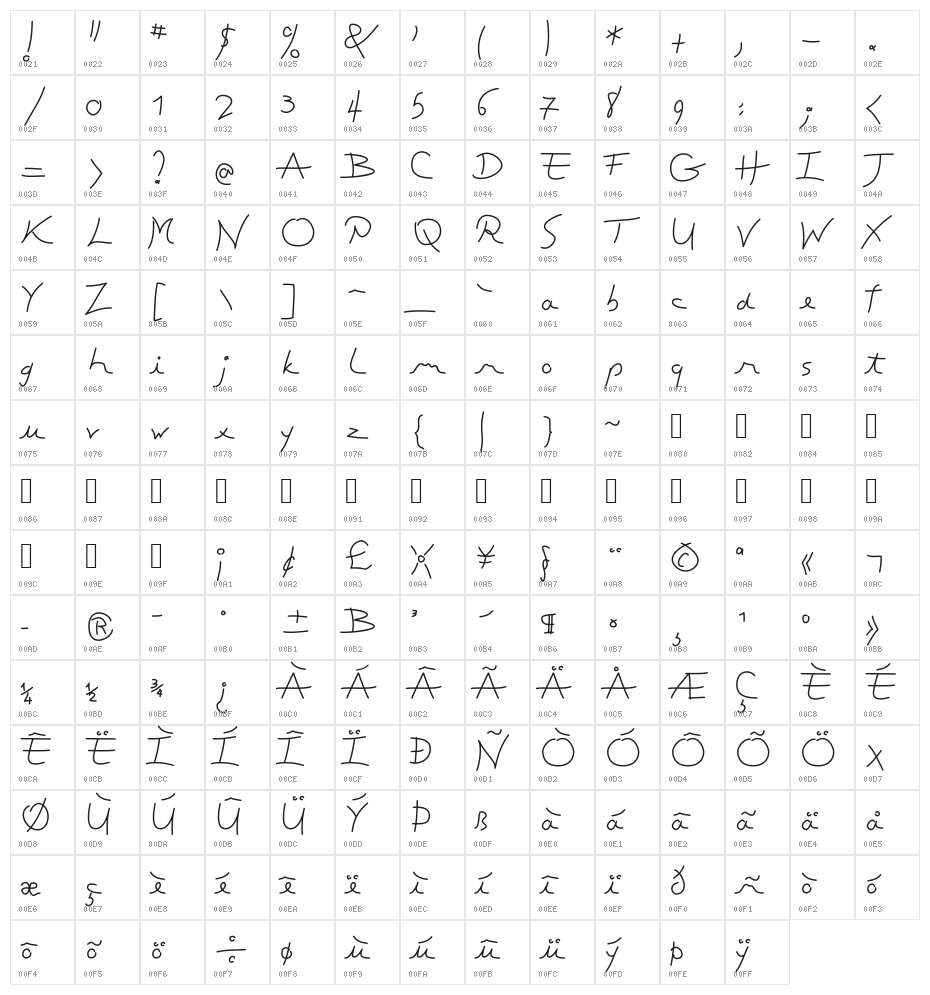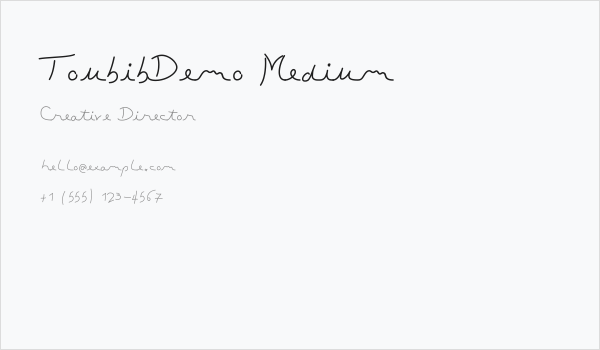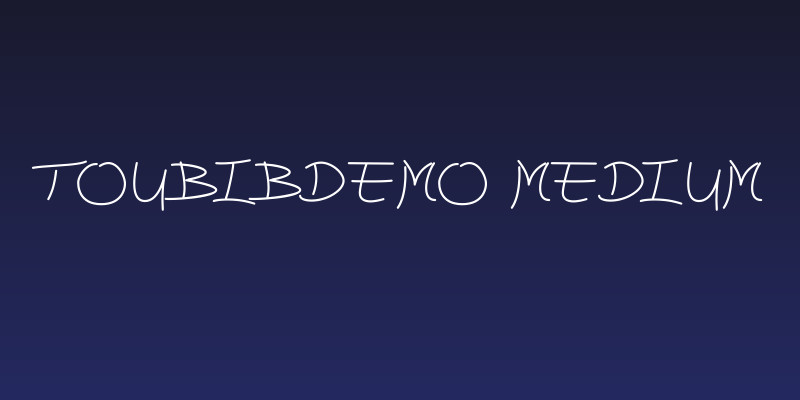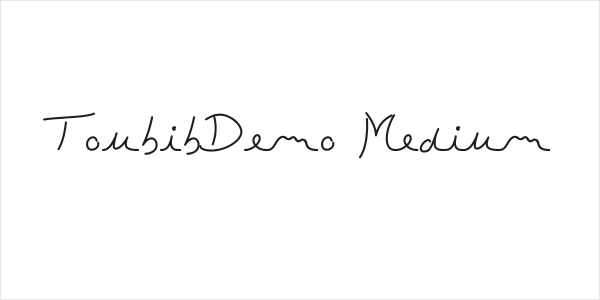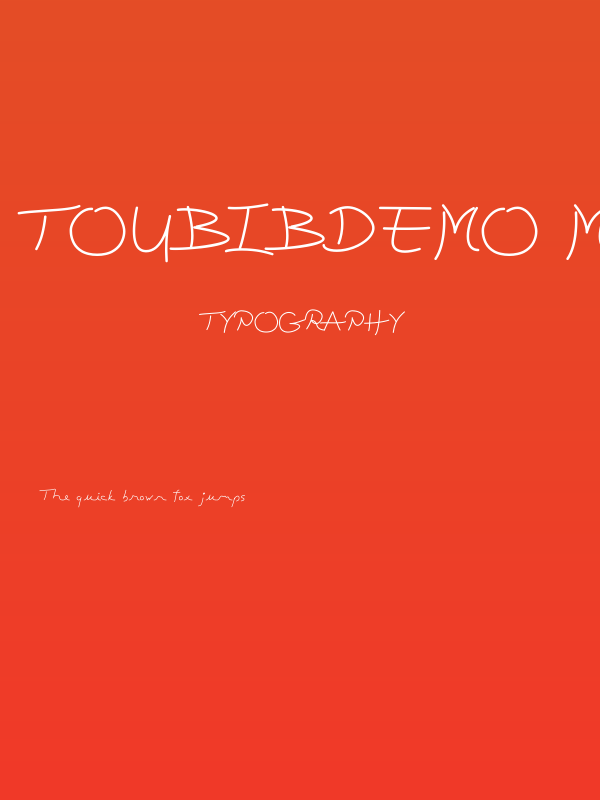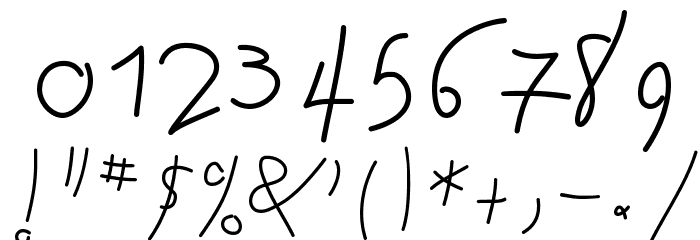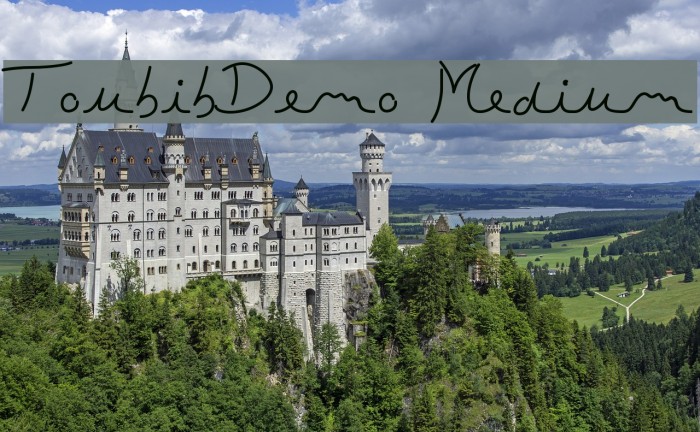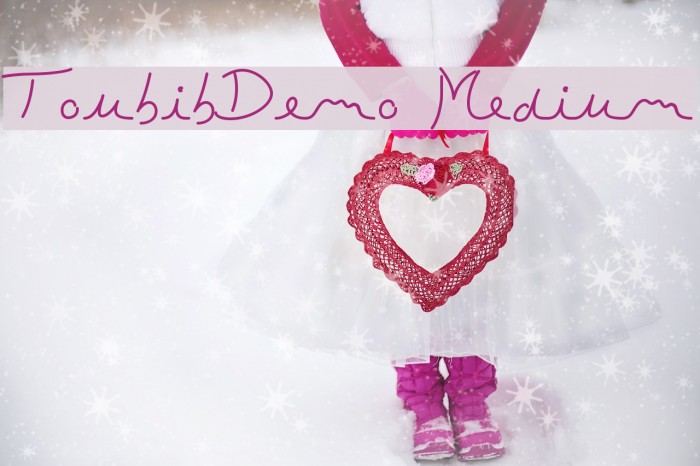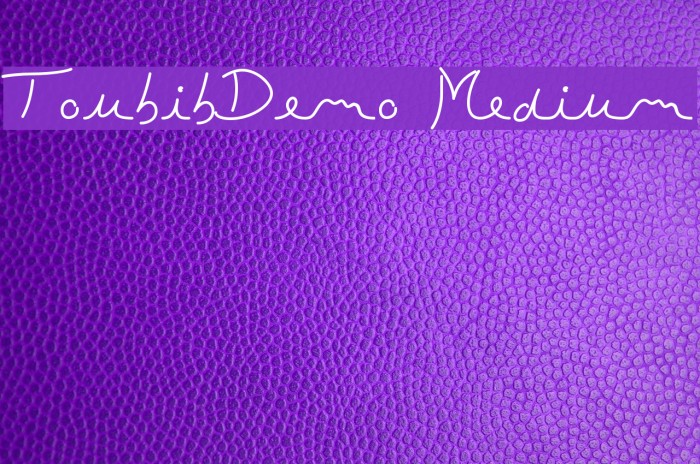
ToubibDemo Medium Font
ToubibDemo Medium Description
This font features a playful and casual handwritten style, characterized by its fluid and slightly irregular strokes. The letters have a natural flow, resembling a personal touch that is both approachable and informal. The uppercase and lowercase letters maintain a consistent style, with a slight slant that adds to the dynamic feel. The numerals and special characters are crafted to match the overall aesthetic, ensuring a cohesive look across all text elements. The font's unique charm makes it suitable for projects that require a personal or creative touch.
| Use Case | Logos, Invitations, Personal notes |
| Proposed Projects | Ideal for greeting cards, personal notes, creative branding, and informal invitations. |